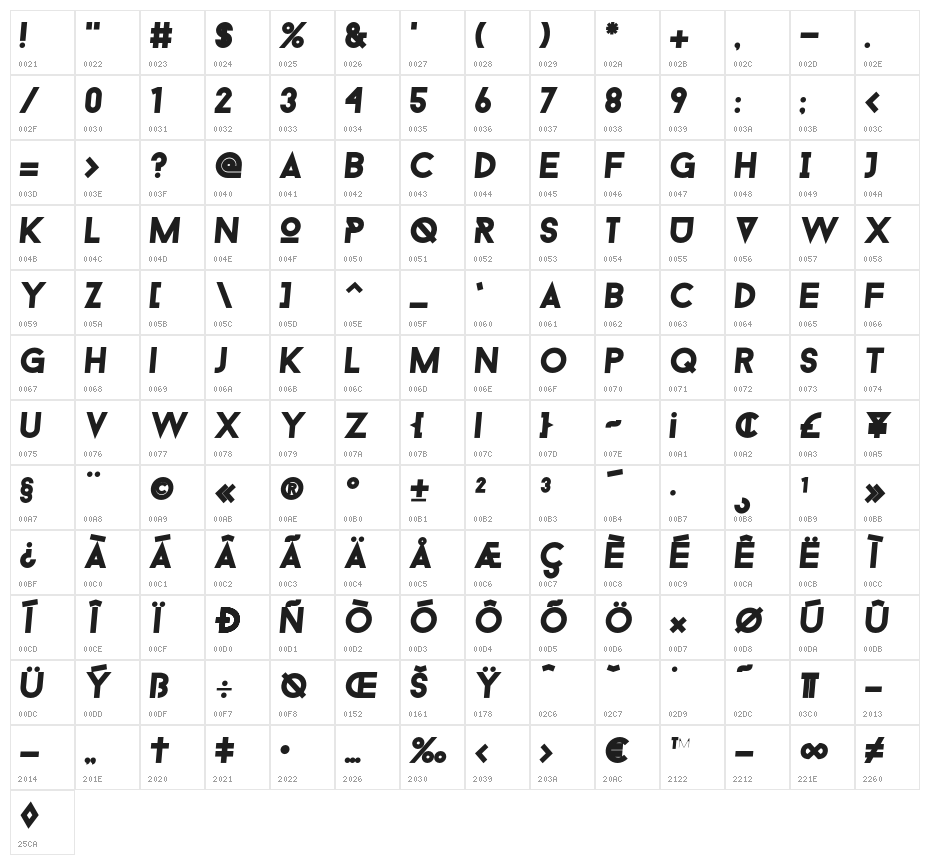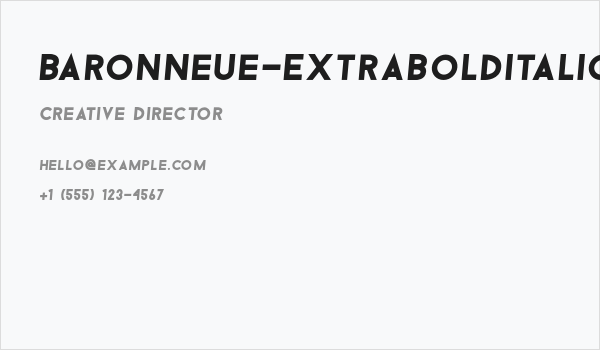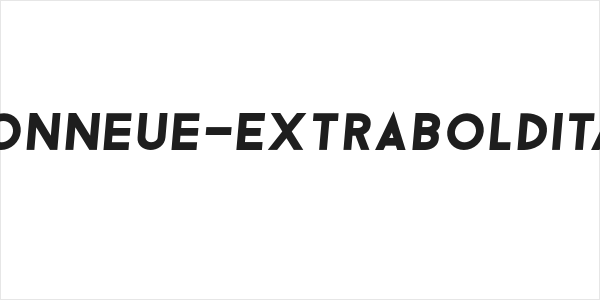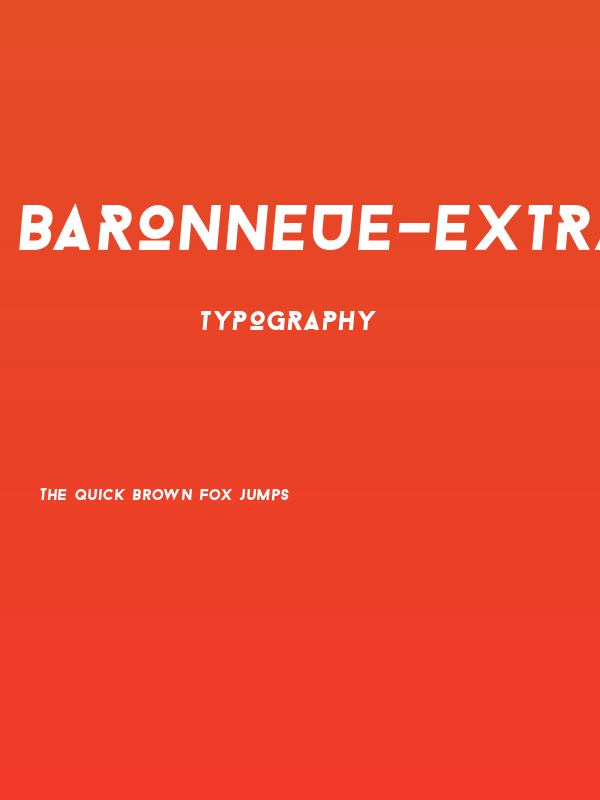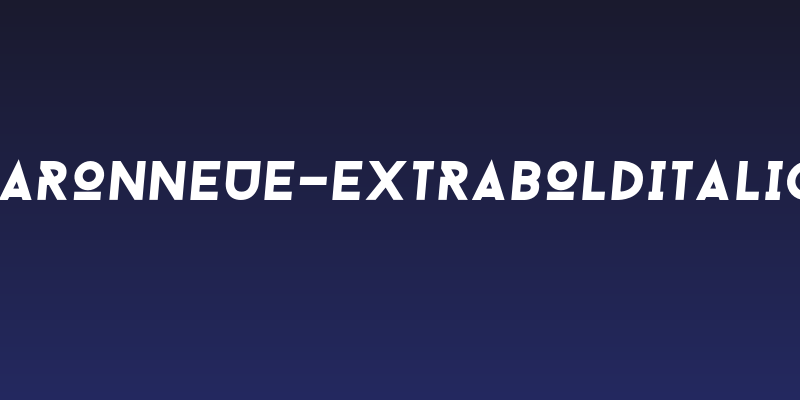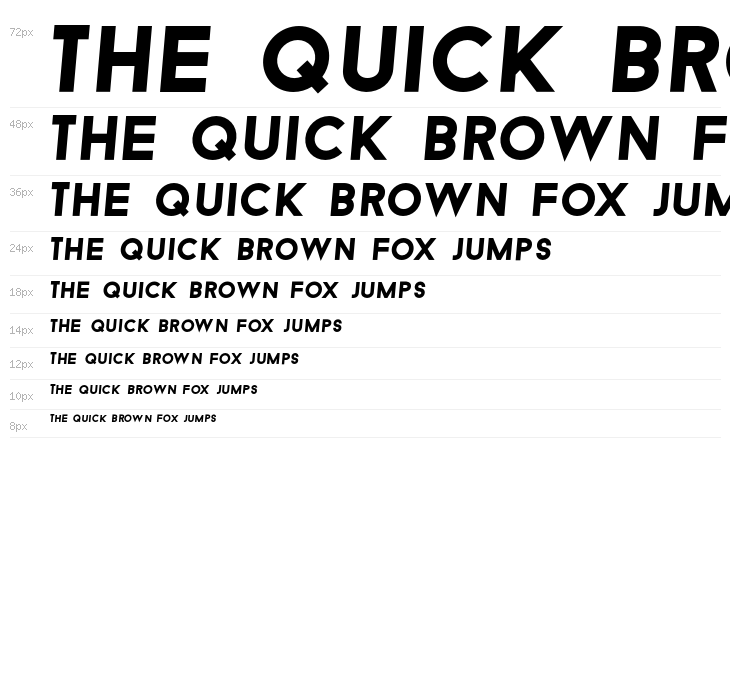
BaronNeue-ExtraBolditalic Font
BaronNeue-ExtraBolditalic Description
This font features a bold and dynamic style with a strong geometric influence. The characters are sharply defined with a slight slant, giving them an italicized appearance. The uppercase letters are uniform in height, while the lowercase letters maintain a consistent baseline, enhancing readability. The numerals are robust and align well with the overall design, making them suitable for impactful displays. Special characters are crafted with the same boldness, ensuring they stand out in any composition. The font's modern aesthetic is ideal for projects that require a contemporary and assertive look.